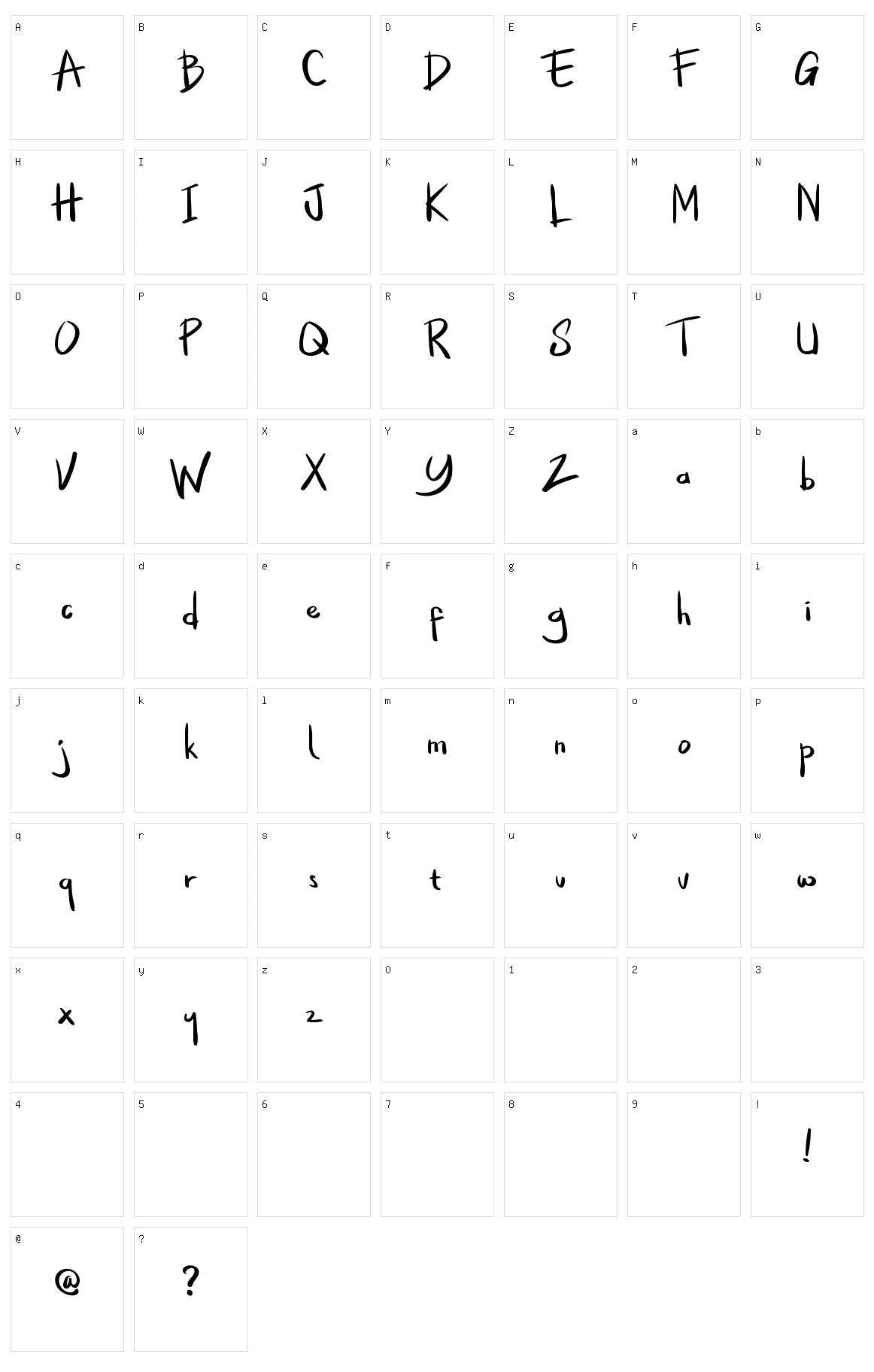
The free font Little Jack is carefully designed by Creatype Studio, showcasing a thoughtful balance of creativity and usability and falls under the Script font style. When you download the ZIP file, it contains only 10.45 KB of font files, making it lightweight and quick to download. Please review the license details below to understand permitted usage and distribution rights. If license information is not available, we recommend using this font for personal projects only or contacting the author directly for commercial usage permissions.